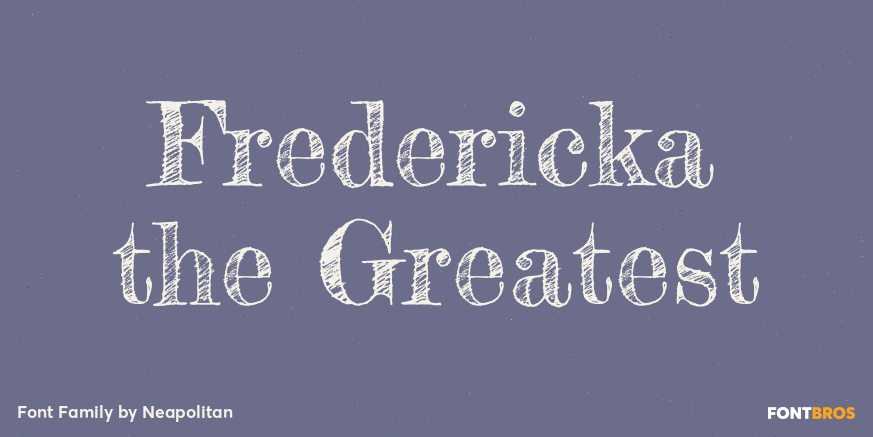
Fredericka the Greatest
About Fredericka the Greatest
Fredericka recalls my college days of nights spent creating handdrawn presentation boards, architectural sketches and student union posters. She\’s fun, she\’s casual, she\’s preppy, she\’s classic, she\’s the Greatest! The Pro version has been expanded and…